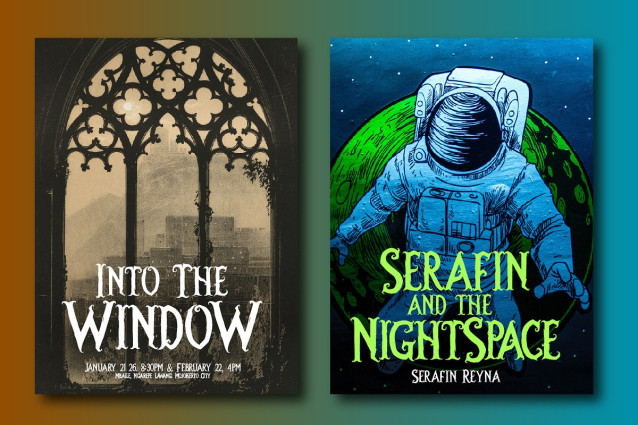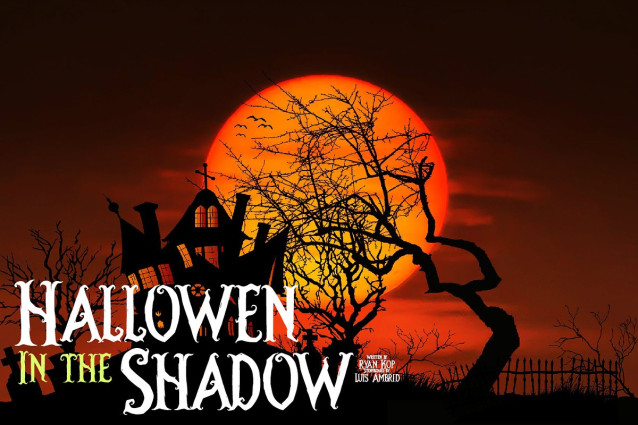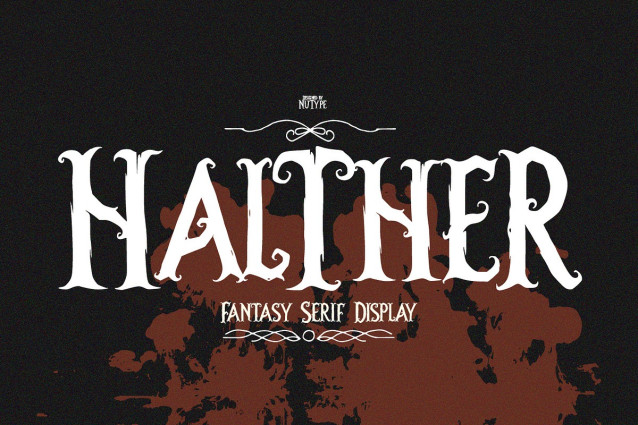
Halther Font
Halther Font is a gothic–fantasy display serif font designed to bring a mysterious and dramatic touch to your projects. Perfect for horror posters, fantasy book covers, game branding, movie titles, or any design that needs a dark and magical vibe.